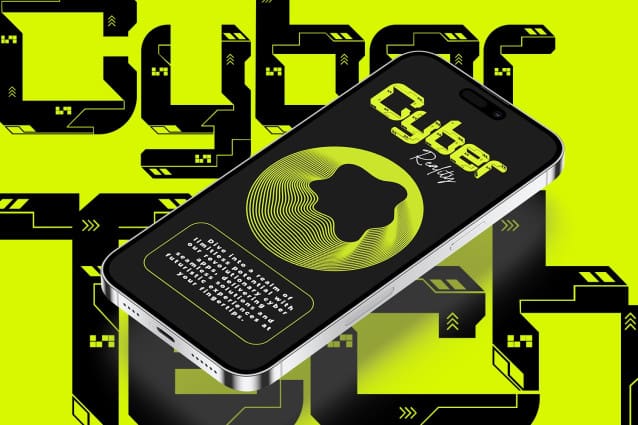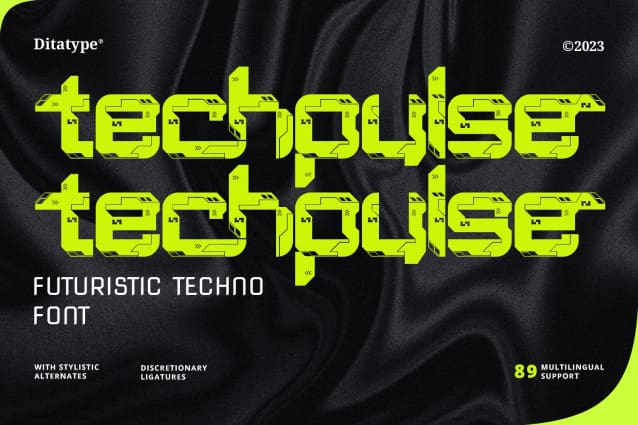
Techpluse Futuristic Font
Techpluse Futuristic Font, is a striking display font that embodies the essence of futuristic design, with techno-inspired details adorning each letter. Every letter in Techpulse is meticulously crafted to incorporate intricate techno details, reminiscent of circuitry patterns and digital elements. These details infuse the font with a sense of dynamic energy, as if each character pulses with technological vitality.
Despite its bold weight, Techpluse maintains a low contrast between strokes, ensuring a balanced and harmonious appearance across the entire typeface. This characteristic enhances readability. The font’s outline style adds to its futuristic appeal, giving each letter a sleek and modern aesthetic.